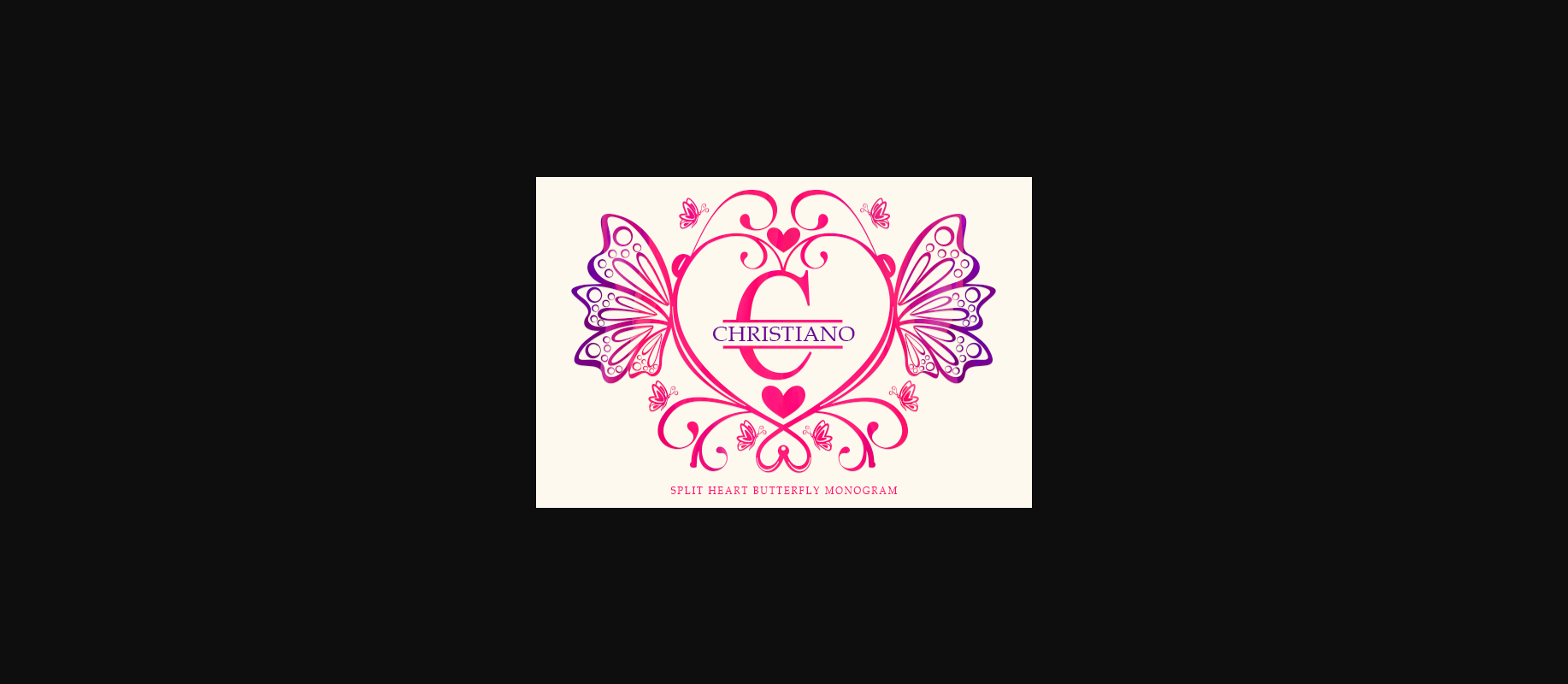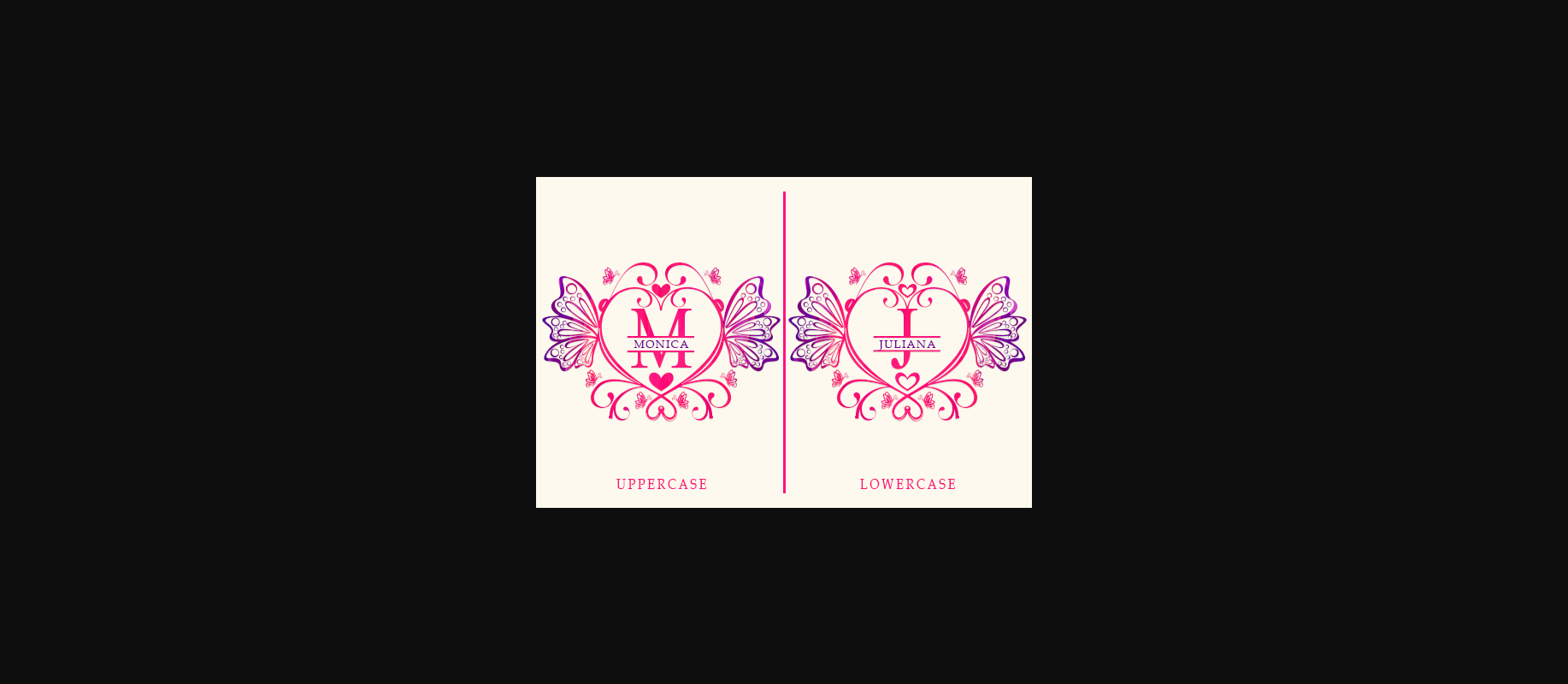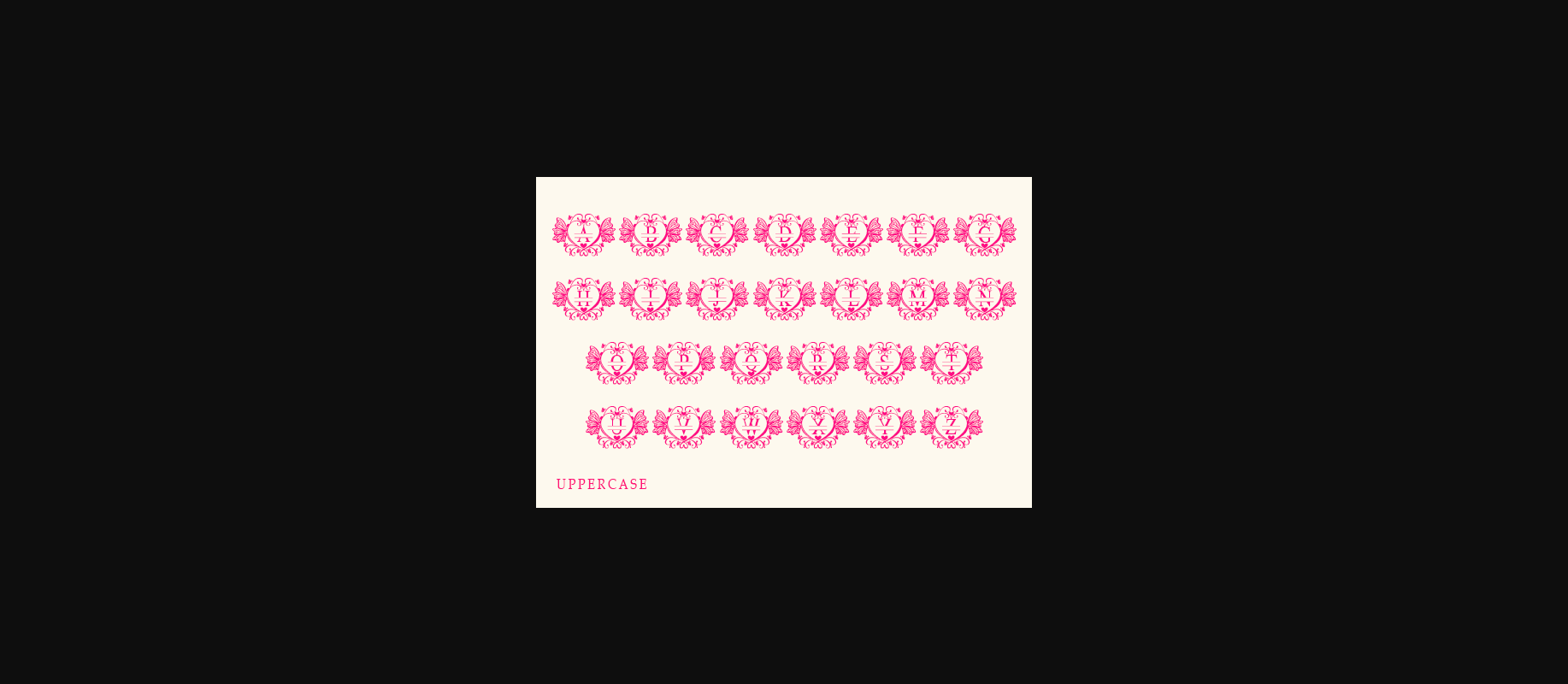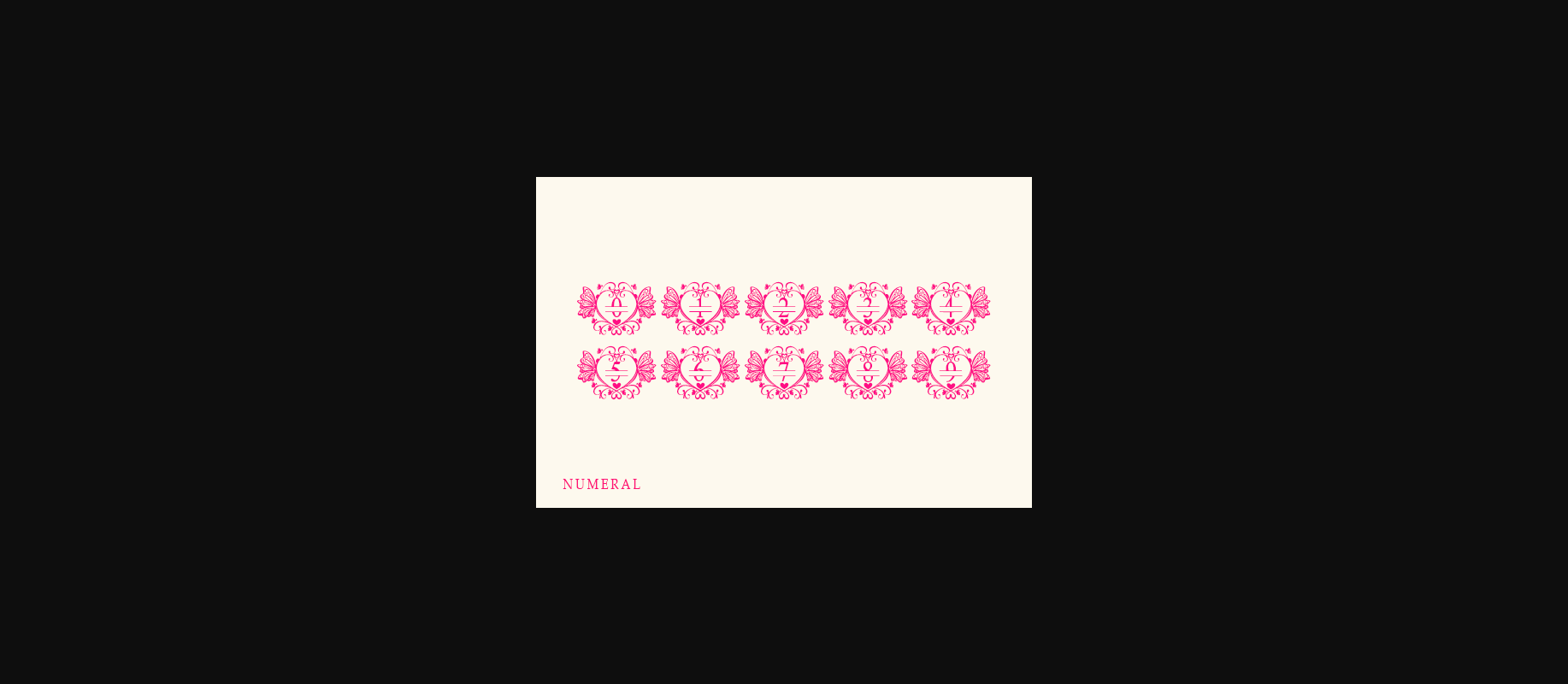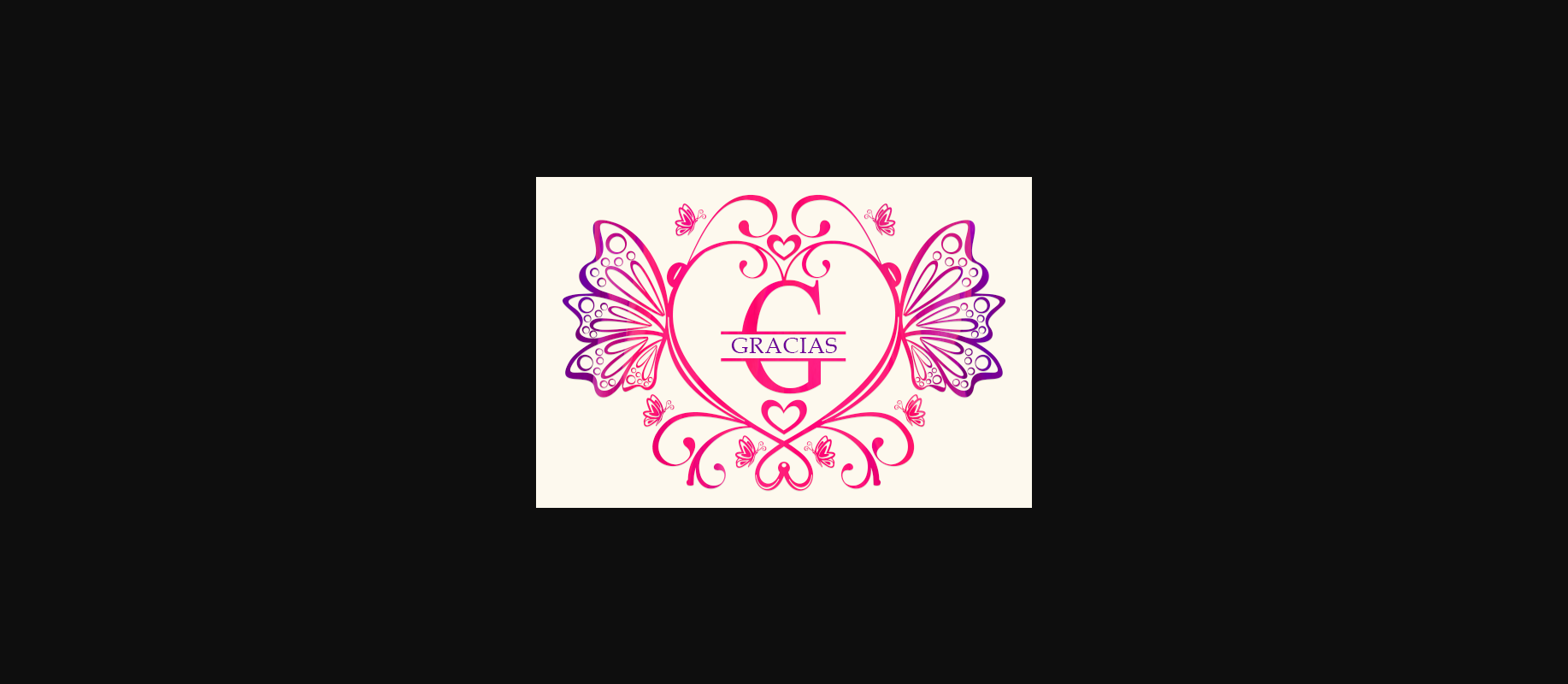
Cristiano Font
About Cristiano Font
Cristiano is an elegant decorative font, featuring lovely ornaments. Fall in love with its authentic feel and use it to create gorgeous wedding invitations, beautiful stationary art, eye-catching social media posts, and cute greeting cards.